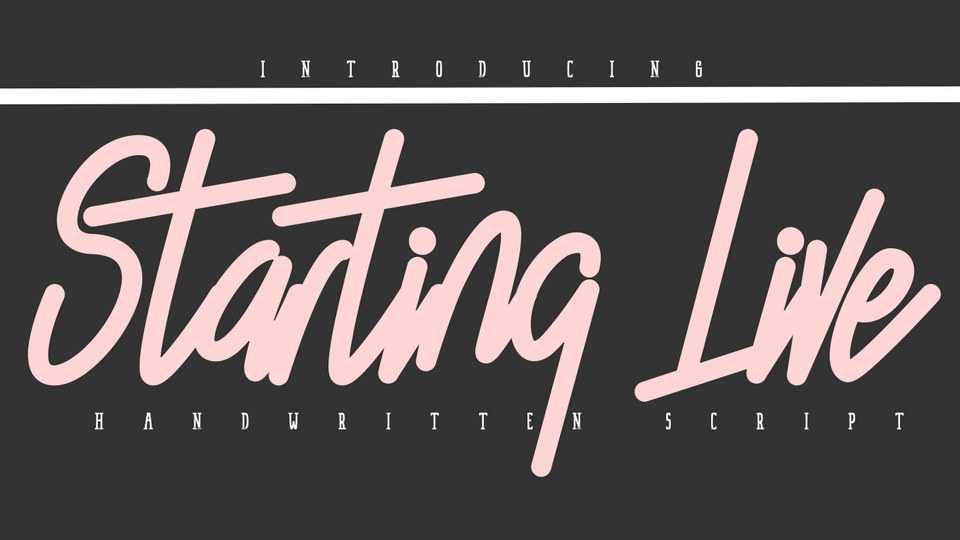
Download Starting Live font, a dynamic handwritten typeface. Incredibly versatile, Starting Live fits a wide range of designs, elevating them to the highest levels.
Designer: Mozyen Studio